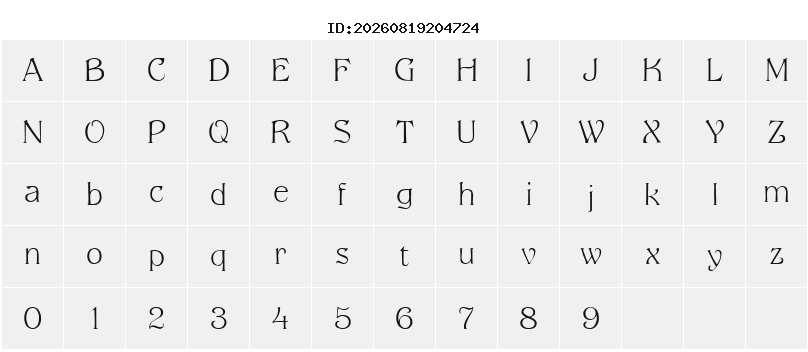
Shelldon Preview
• Font Name: Shelldon
• Full Font Name: Shelldon Plain0.0
About Shelldon.ttf
Shelldon.ttf is a modern, elegant sans-serif font designed for ultimate readability and visual harmony. Perfect for branding, headlines, web design, and print materials.